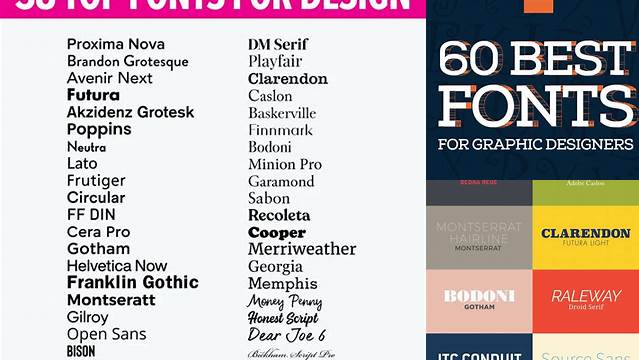
Top Graphic Design Fonts: A Designer's Guide
Hey guys! Ever wondered what makes a design truly pop? Well, a huge part of it is the font! Choosing the right font can be the difference between a design that wows and one that falls flat. Let's dive into the fascinating world of graphic design fonts and discover how to pick the perfect one for your project. We'll cover everything from the basics to some trendy choices, making sure you're equipped to make your designs shine. Ready? Let's get started!
1. Understanding the Basics of Graphic Design Fonts
When we talk about graphic design fonts, we're really talking about the art of typography. Typography involves selecting the right font to convey the right message, emotion, and aesthetic. Understanding the basic classifications of fonts is crucial. You've got your Serif fonts, which have those little feet or strokes at the end of letters, giving them a classic and formal look. Then there are Sans-Serif fonts, which are cleaner and more modern. Script fonts mimic handwriting and add a touch of elegance. Finally, Display fonts are the attention-grabbers, perfect for headlines and logos because they're bold and unique. Each type has its own personality and best-use cases. Knowing this helps you choose a font that aligns with your design's purpose and brand identity. The perfect font can elevate your design from simple to striking, communicating your message effectively and leaving a lasting impression. Consider your audience, the tone you want to set, and the overall style of your design when making your choice.
2. Serif Fonts: Timeless Elegance
Ah, serif fonts! These are like the elder statesmen of the font world, exuding a sense of tradition and sophistication. Think Times New Roman, Garamond, or Georgia. These fonts are characterized by their serifs—those little decorative strokes at the end of each character. Serif fonts are fantastic for print because they guide the eye across the page, making them super readable for long blocks of text. They bring a level of formality and credibility to designs, making them perfect for books, newspapers, and corporate documents. But don't think they're just for serious stuff! With the right touch, serif fonts can also add a touch of class to invitations, logos, and websites. The key is to pair them with a modern sans-serif font to balance tradition with a contemporary feel. Experiment with different weights and sizes to find the perfect harmony. Remember, the right serif font can bring a touch of timeless elegance to any project.
3. Sans-Serif Fonts: Modern Simplicity
Now let's talk about sans-serif fonts. These are the sleek, modern cousins of serif fonts. Think Arial, Helvetica, or Open Sans. Sans-serif fonts are characterized by their clean lines and lack of serifs, giving them a minimalist and contemporary look. They're incredibly versatile and work well in a variety of applications, from websites and apps to logos and marketing materials. Sans-serif fonts are particularly great for digital screens because they're easy to read at smaller sizes. They convey a sense of clarity and efficiency, making them perfect for businesses that want to project a modern and straightforward image. Pairing a sans-serif font with a bolder display font can create a dynamic and eye-catching design. The simplicity of sans-serif fonts also means they can be easily customized to fit your brand's unique style. Whether you're designing a website, creating a logo, or developing a mobile app, sans-serif fonts offer a clean and modern solution that will keep your designs looking fresh and relevant.
4. Script Fonts: Adding a Personal Touch
If you want to add a touch of personality and flair to your designs, script fonts are the way to go! These fonts mimic handwriting, bringing a sense of warmth and individuality to any project. From elegant calligraphy to playful brush strokes, script fonts come in a wide variety of styles. They're perfect for invitations, greeting cards, logos, and anything that needs a personal touch. However, be careful not to overuse script fonts, as they can be difficult to read in large blocks of text. Use them sparingly to highlight key words or phrases, and always pair them with a more readable font for the body text. Script fonts can convey a range of emotions, from romantic and whimsical to sophisticated and professional. Choose a script font that aligns with the overall tone and style of your design. With the right touch, script fonts can add a unique and memorable element to your creations.
5. Display Fonts: Making a Statement
Need to grab attention? That's where display fonts come in! These fonts are designed to be bold, eye-catching, and unique. They're perfect for headlines, logos, posters, and anything that needs to make a statement. Display fonts come in a huge variety of styles, from vintage and retro to modern and futuristic. They're not meant to be used for long blocks of text, as readability can be an issue. Instead, use them sparingly to highlight key messages and draw the viewer's eye. When choosing a display font, consider the overall tone and style of your design. A playful and whimsical display font might be perfect for a children's book, while a bold and futuristic display font might be better suited for a tech company's website. Display fonts are all about making an impact, so choose wisely and have fun experimenting with different options!
6. Pairing Fonts Like a Pro
Font pairing is an art in itself! The goal is to find two or more fonts that complement each other and create a harmonious design. A classic approach is to pair a serif font with a sans-serif font. For example, you could use a serif font for the headings and a sans-serif font for the body text. This creates a nice contrast and makes the design more readable. Another approach is to pair fonts from the same family but with different weights and styles. For example, you could use a bold version of a font for the headings and a regular version for the body text. When pairing fonts, it's important to consider the overall tone and style of your design. Avoid pairing fonts that are too similar, as this can make the design look boring. Also, avoid pairing fonts that clash, as this can be distracting and unprofessional. Experiment with different combinations until you find the perfect pairing that enhances your design and conveys your message effectively. Font pairing can truly elevate your graphic design work.
7. The Psychology of Fonts
Did you know that fonts can evoke different emotions and associations? It's true! The psychology of fonts plays a huge role in how your designs are perceived. For example, serif fonts often convey a sense of tradition, authority, and trustworthiness. Sans-serif fonts, on the other hand, tend to evoke feelings of modernity, simplicity, and clarity. Script fonts can convey elegance, warmth, and creativity. Display fonts can grab attention and make a statement. When choosing fonts for your designs, consider the emotions and associations you want to evoke. A financial institution might choose a serif font to project an image of stability and reliability, while a tech startup might opt for a sans-serif font to convey innovation and modernity. Understanding the psychology of fonts can help you make more informed design decisions and create designs that resonate with your target audience on an emotional level.
8. Font Licensing: What You Need to Know
Before you start using fonts in your designs, it's important to understand font licensing. Font licenses dictate how you can use a particular font. Some fonts are free for personal and commercial use, while others require you to purchase a license. It's crucial to read the font license carefully before using a font, as violating the terms of the license can lead to legal issues. Font licensing can be complex, but here are some general guidelines: Free fonts often come with restrictions, such as limitations on commercial use or modification. Commercial fonts typically require you to purchase a license for each user or device. Some licenses allow you to embed the font in documents or websites, while others don't. Always keep a record of the fonts you use and their corresponding licenses. If you're unsure about the terms of a font license, it's always best to err on the side of caution and contact the font designer or foundry for clarification.
9. Free vs. Premium Fonts
The age-old debate: free versus premium fonts! Both have their pros and cons. Free fonts are great for personal projects or when you're on a tight budget. There are many websites offering free fonts, but it's important to ensure they come with a license that allows for your intended use, especially commercial projects. Premium fonts, on the other hand, usually offer higher quality, more extensive character sets, and better support. They also often come with a license that allows for broader usage rights. Free versus premium fonts really depends on your needs and budget. If you're working on a professional project, investing in premium fonts can be worth it for the quality and peace of mind they provide. However, if you're just starting out or working on a personal project, free fonts can be a great way to experiment and learn. Always prioritize licensing and ensure you're complying with the terms of use, regardless of whether the font is free or premium.
30. The Future of Typography: Innovations and Predictions
The future of typography is dynamic and innovative, driven by technological advancements and evolving design trends. Predictions for the future of typography include the widespread adoption of variable fonts, AI-driven font design, and immersive typographic experiences in virtual and augmented reality. Variable fonts offer designers unprecedented control over font styles and customization options. AI-driven font design tools can generate unique and expressive typefaces based on user input. Immersive typographic experiences can enhance user engagement and storytelling in digital environments. The future of typography promises exciting possibilities for designers to create visually stunning and impactful designs.